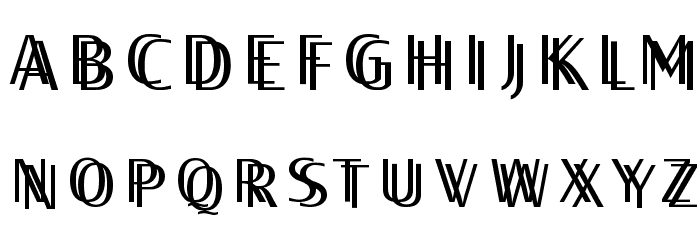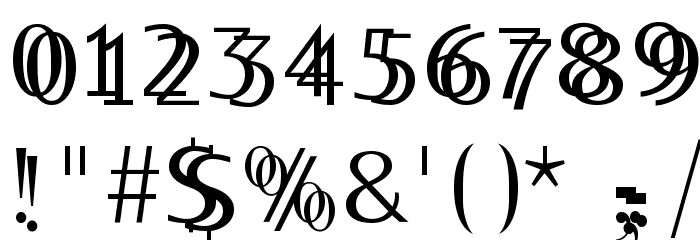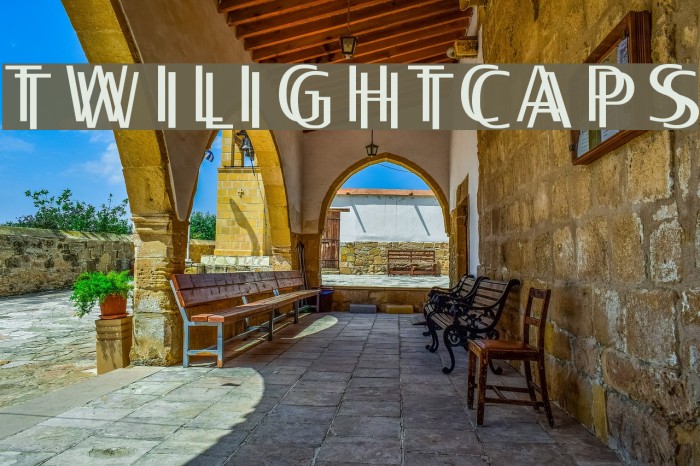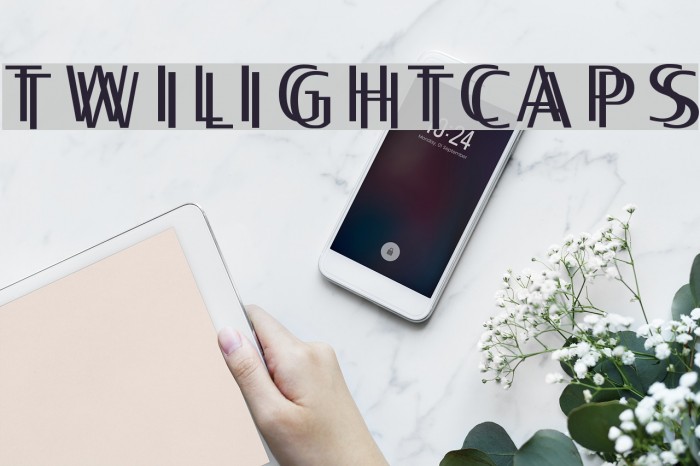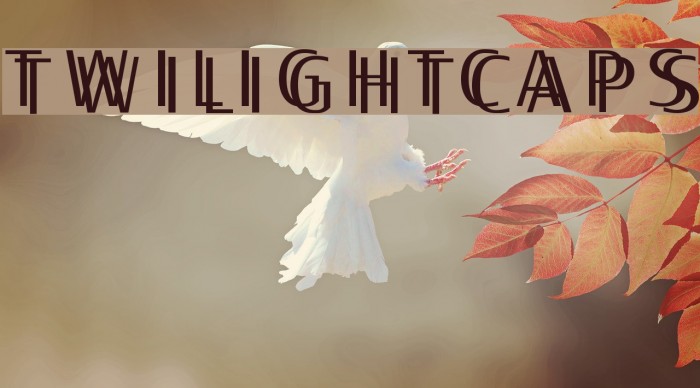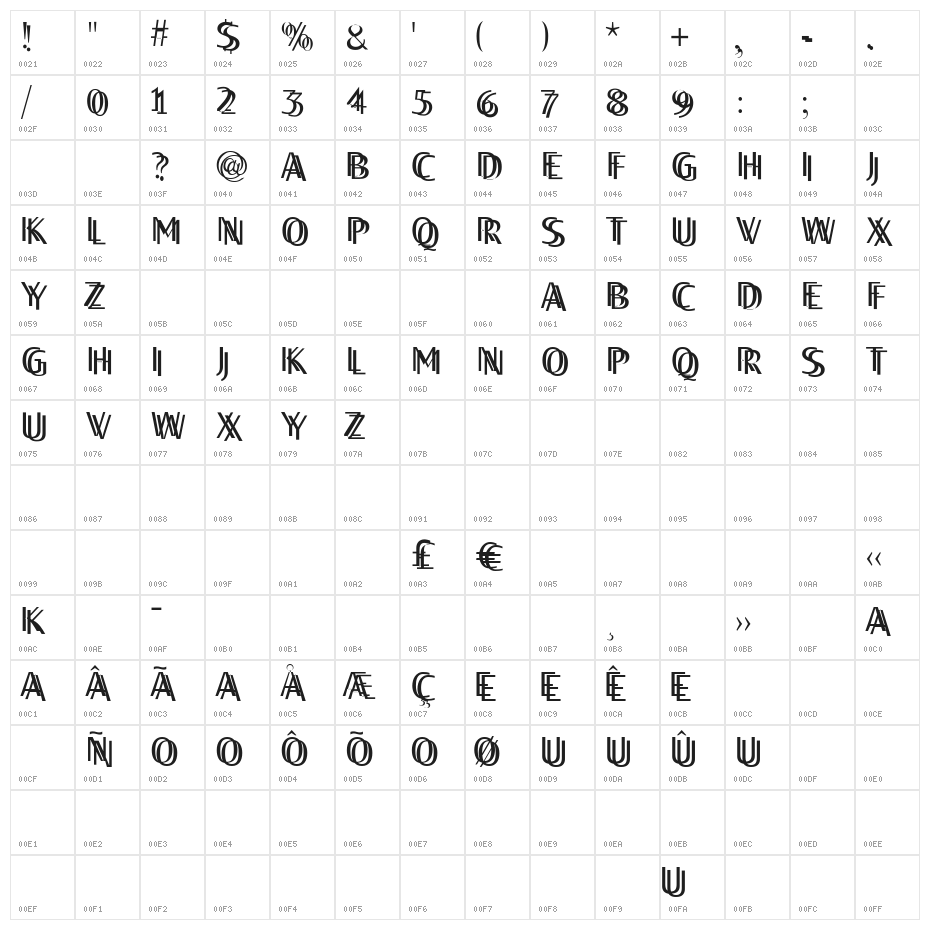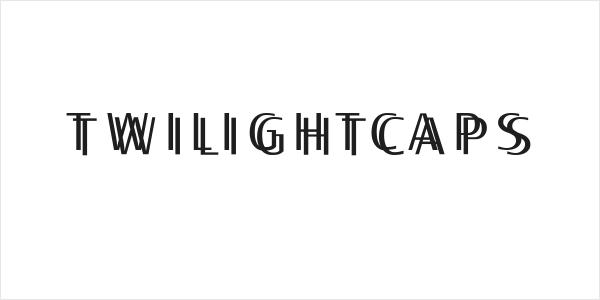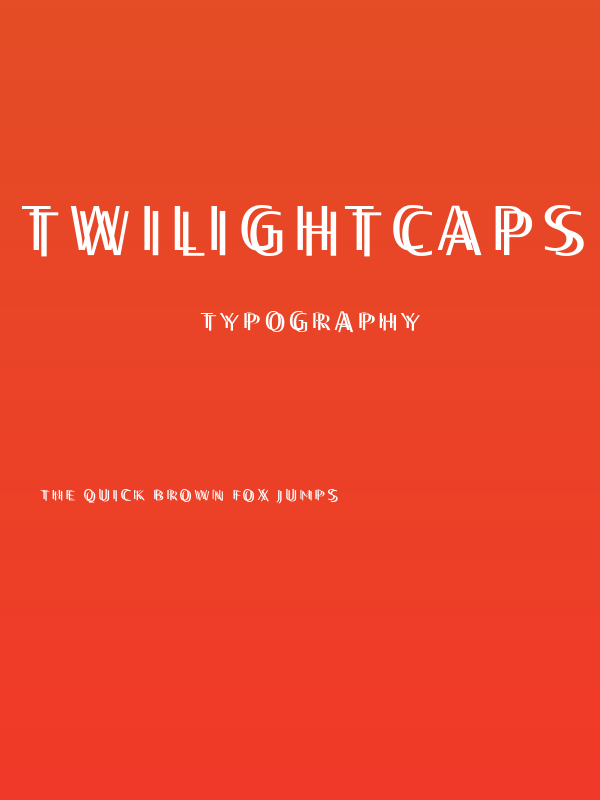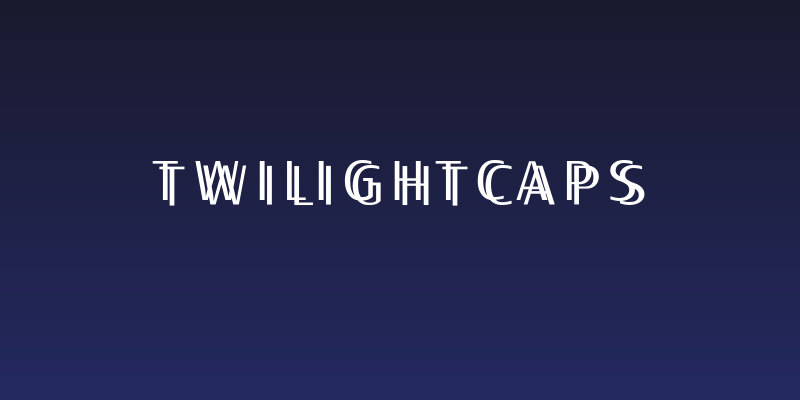
TwilightCaps Font
This font features a unique and artistic style with a modern twist. The characters are bold and have a distinct shadow effect that gives them a three-dimensional appearance. The uppercase and lowercase letters maintain a consistent design, with sharp angles and clean lines. The numerals are equally stylized, matching the overall aesthetic of the alphabet. Special characters are included, each with the same shadowed effect, adding to the font's cohesive look. This font is ideal for projects that require a bold statement and a touch of creativity.
A bold, shadowed font with a modern and artistic style.
- Proposed Projects: Ideal for posters, logos, headlines, and any design needing a bold, artistic touch.